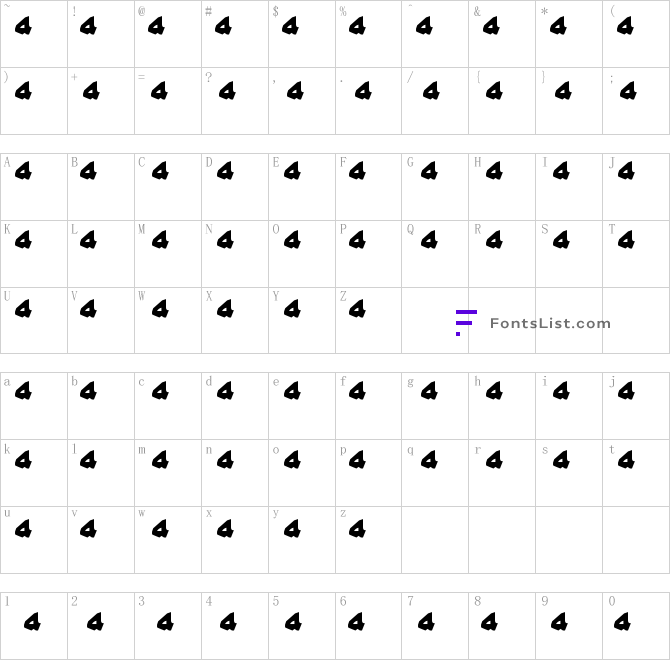
- Font Name:alghorie syawal
alghorie-syawal.ttf is a very beautiful artistic font, alghorie-syawal.ttf is widely used in the design and printing of various books and pictures,alghorie-syawal.ttf has a strong visual impact,alghorie-syawal.ttf is a commonly used font in newspapers, magazines and books, and is used in posters, e-commerce Poster design, store design, logo design, font design and other fields.alghorie-syawal.